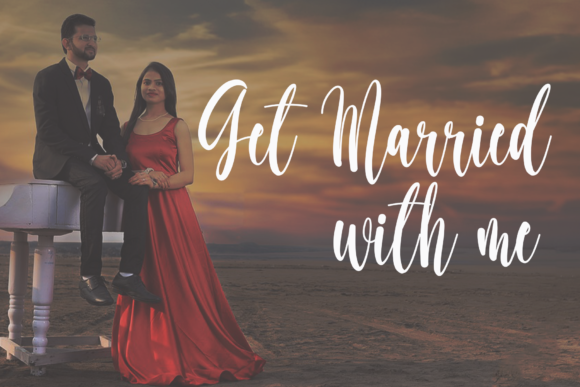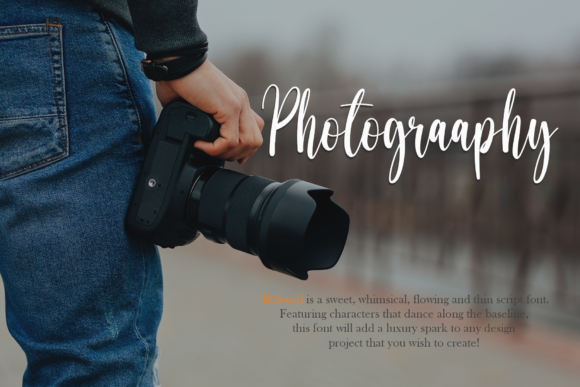
Beloved Font
db-ku.com - Script & Handwritten -- Beloved is a sweet and delicate handwritten font. Dainty and joyful, this font will be ideal for writing wedding invitations, cards or any other design that may need a romantic, personalized touch!